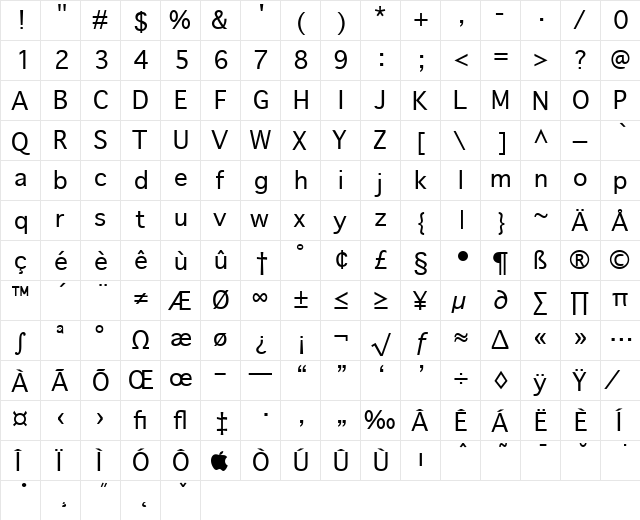
Design Context for MacFont Typeface
MacFont offers clean, dependable letterforms without strong stylistic allegiance, making it a practical choice for designers who need flexibility.
Pro Tip: Use MacFont in both headline and body roles to test its range before committing to a single application.